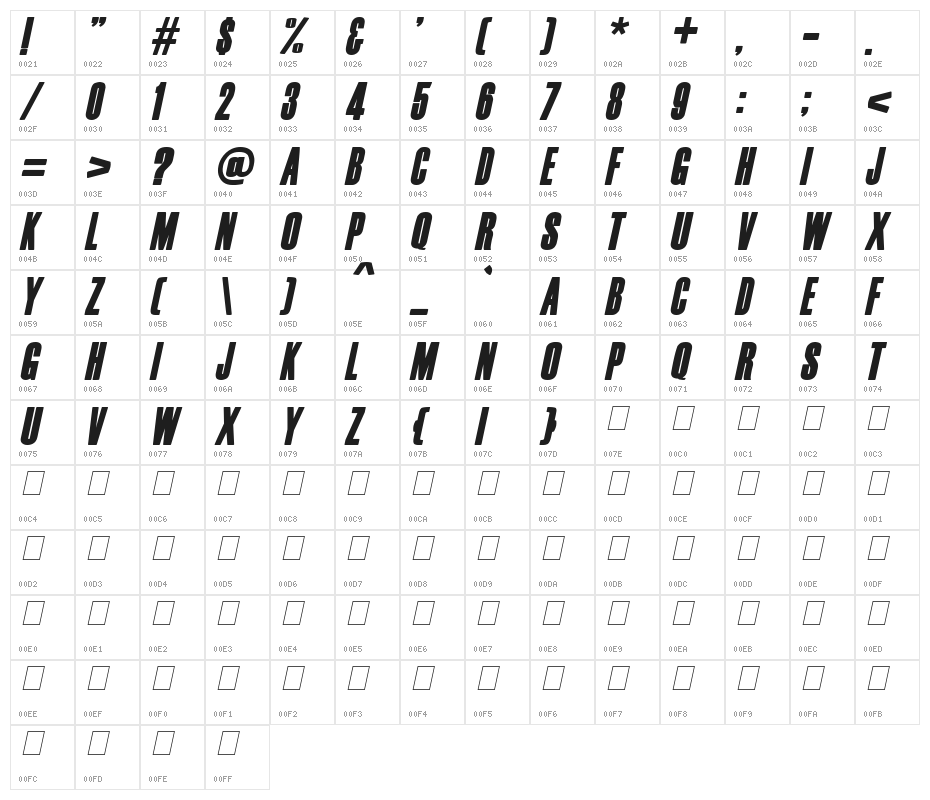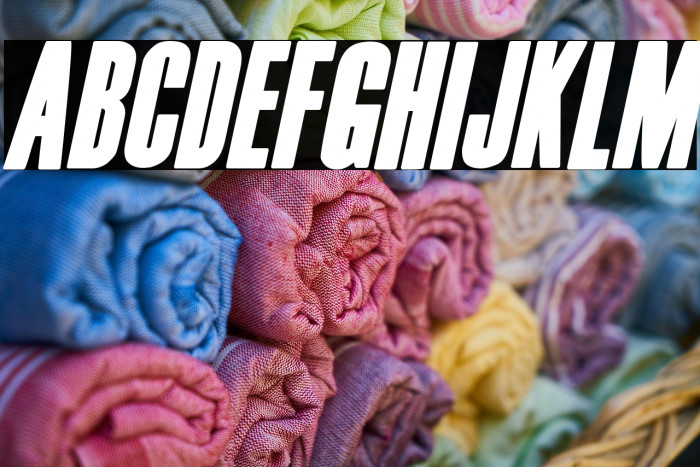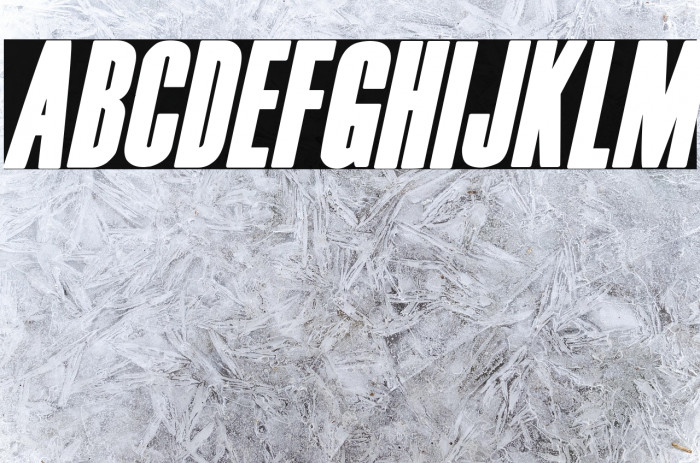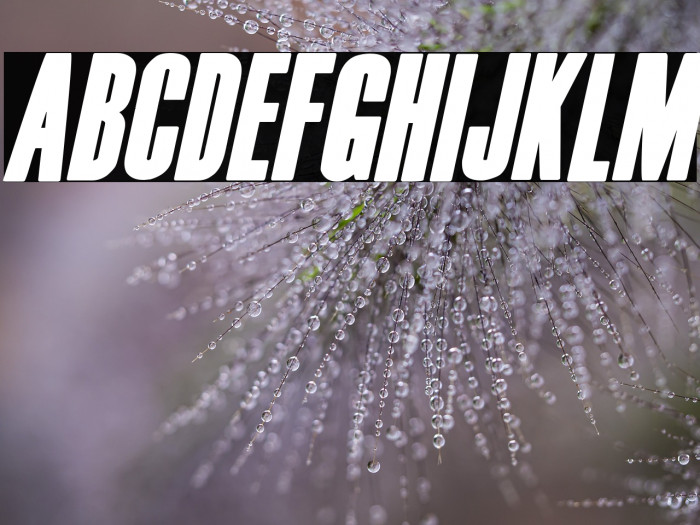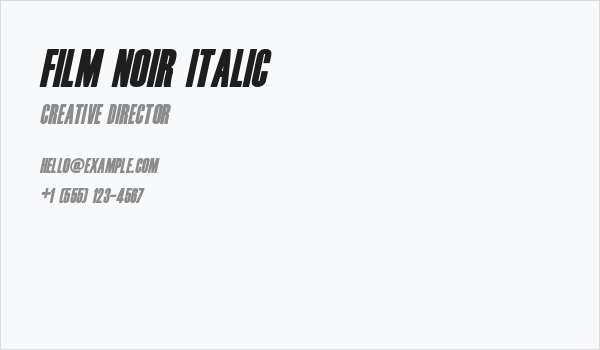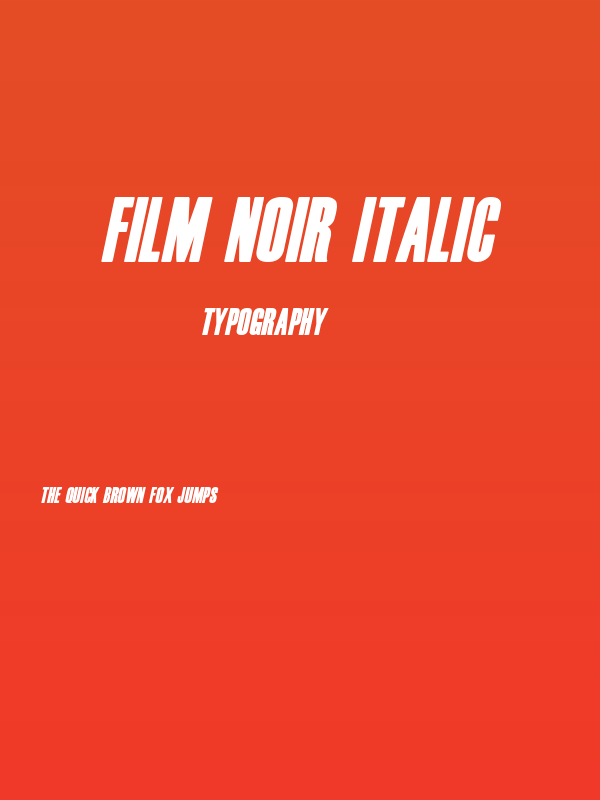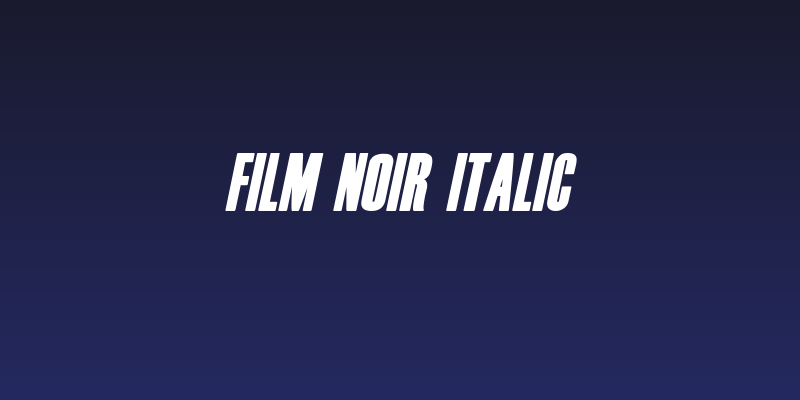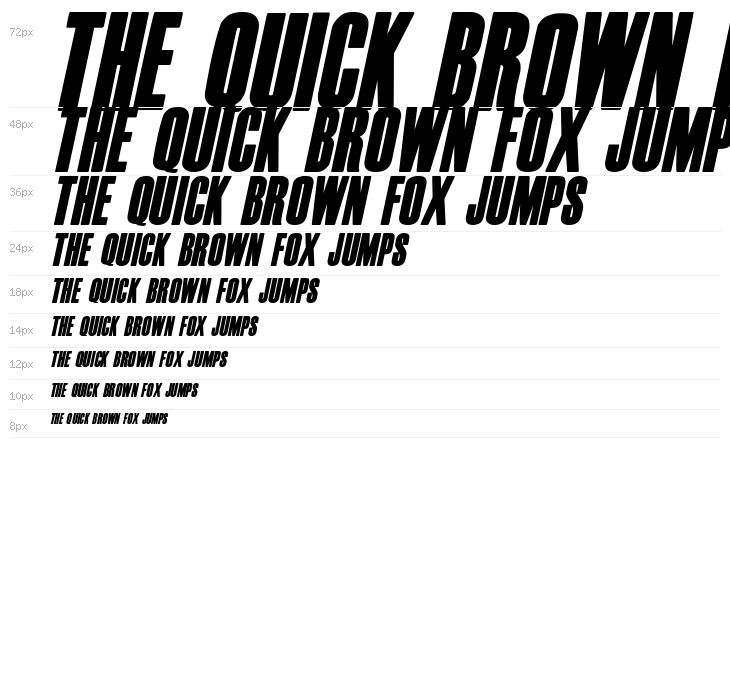
Film Noir Italic Font
Film Noir Italic Description
This font exhibits a bold and dynamic style with a strong italic slant, giving it a sense of motion and urgency. The characters are tightly spaced, enhancing its compact and impactful appearance. The strokes are thick and consistent, providing a high contrast that makes the letters stand out prominently. Its design is reminiscent of classic film noir aesthetics, with a modern twist that adds a touch of drama and sophistication. The uppercase and lowercase letters maintain a uniformity that ensures readability while still conveying a sense of boldness and authority. The numerals and special characters are designed to match the overall style, ensuring a cohesive look across all text elements.
| Proposed Projects | Ideal for movie posters, book covers, branding, and advertising campaigns that require a bold and dramatic impact. |